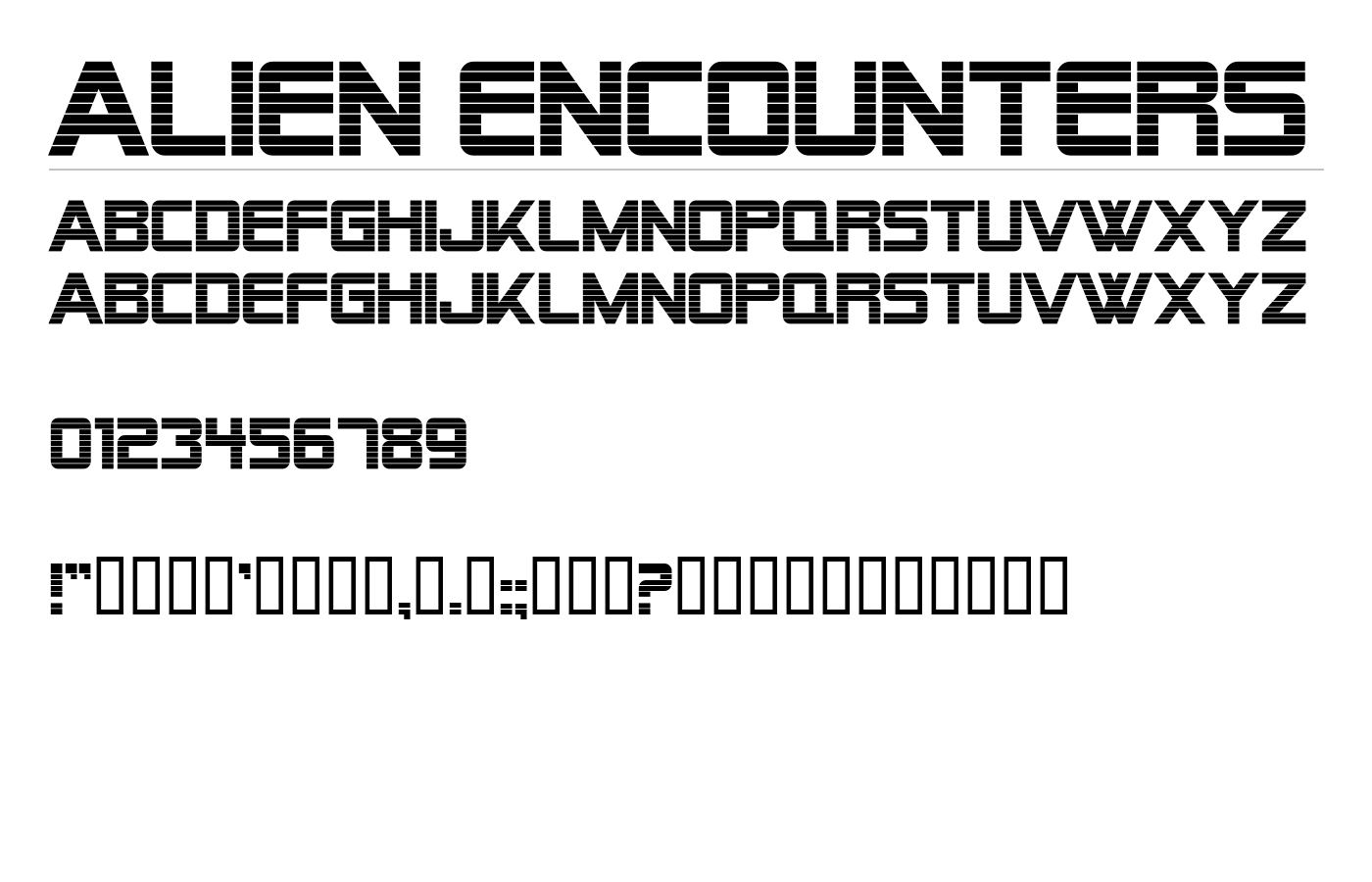
Alien Encounters is a bold, futuristic sans serif font featuring a distinctive horizontal striped pattern that gives it a tech-inspired, sci-fi vibe. With its geometric letterforms and strong, wide stance, it’s perfect for eye-catching headlines, logos, and designs that want to evoke space-age innovation or digital themes. This font works best in creative, modern projects where a unique, otherworldly look is desired.
Alien Encounters Font